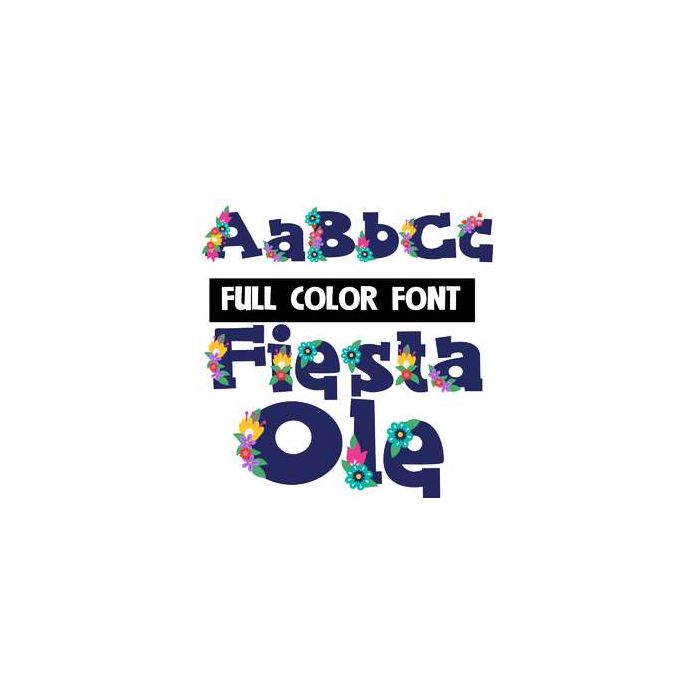
This full-color font features a bright colorful floral spray on each letter. This font works best for titles, displays, posters and more. Please note color fonts will show as black in non compatible programs. This font type is compatible with Silhouette Studio.